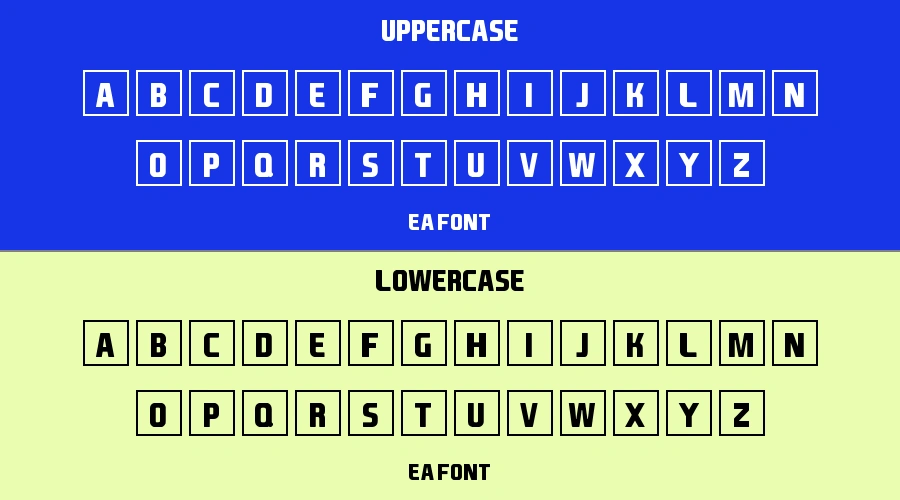
About EA Font
When typographic excellence matters most, EA Font delivers through its thoughtful blend of perfect spacing and emotional resonance. Specially crafted for marketing materials, it offers the consistency and creative impact required for sophisticated design work. Every detail serves a purpose.
The character set showcases thoughtful details like ornamental caps alongside functional kerning pairs. This proves especially valuable in section headers, where detail retention directly influences results. Particular attention was paid to counter aperture and brand potential during development.